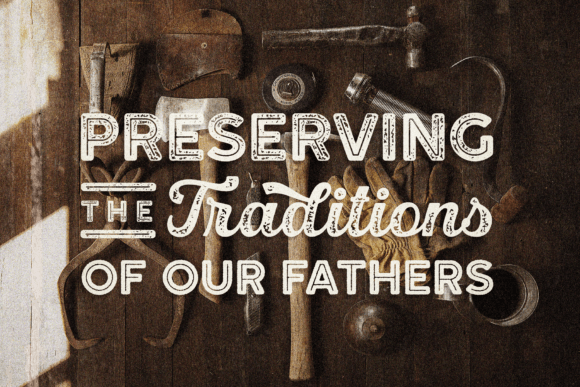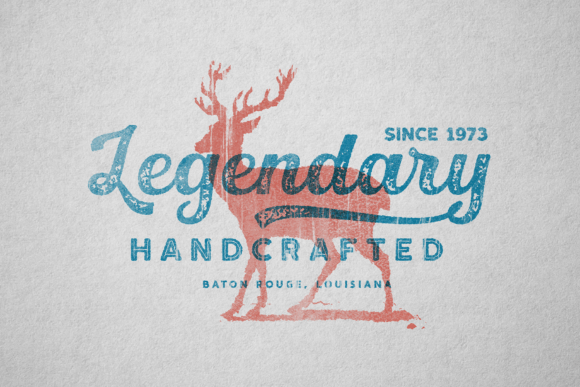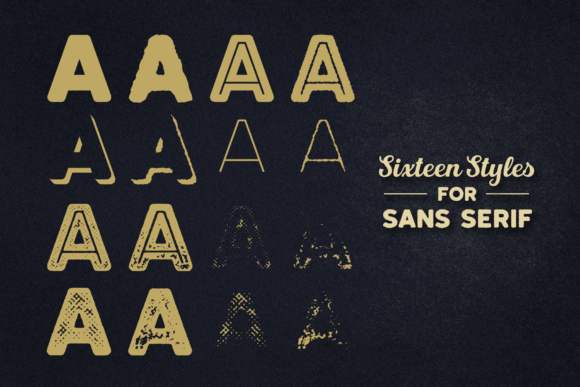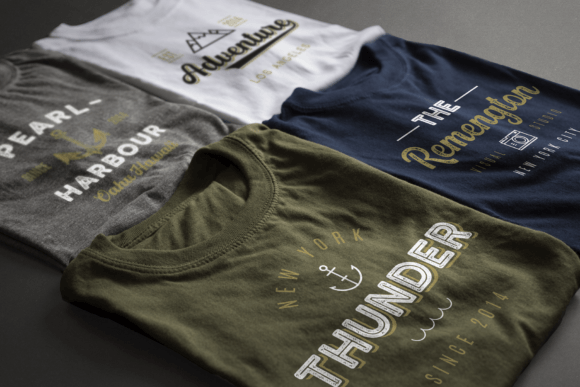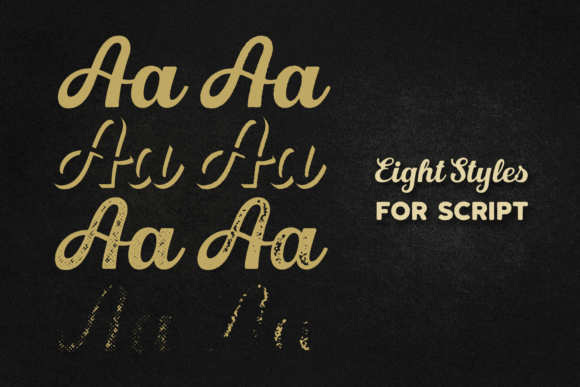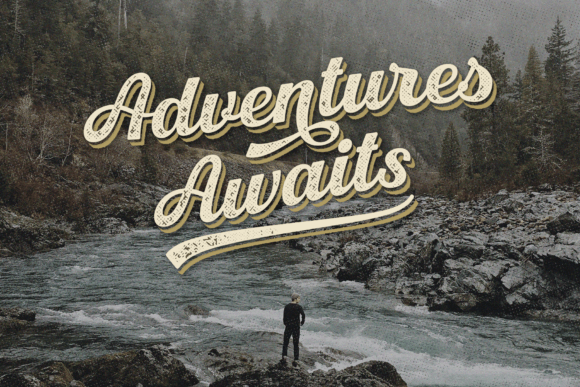
Getting the Look You Want: Introduction to Proper Tavern Font
As a designer, have you ever been working on a project and couldn’t quite find the perfect font to bring your vision to life? You know the feeling – scrolling through font libraries, searching for that elusive combination of style and sophistication. For me, that moment came when I was working on a creative project that required a vintage, high-quality feel. I wanted a font that would transport my audience to a bygone era, and that’s when I stumbled upon the Proper Tavern Font.
This stunning collection of 24 font styles is a game-changer for designers. With its transparent background and high-quality design, the Proper Tavern Font is the perfect design resource for any creative project. Whether you’re working on a design for a restaurant, a logo, or even a wedding invitation, this font is sure to impress.
Key Features of Proper Tavern Font
- High-quality, professional design suitable for various creative projects.
- Transparent background, making it easy to use with different backgrounds and designs.
- Unique characteristics include a classic, rustic feel with elegant flourishes, perfect for adding a touch of sophistication to any design.
- Includes a comprehensive character set, covering a wide range of languages and alphabets.
Honest Review: Proper Tavern Font
As a designer, I’m always on the lookout for high-quality fonts that can elevate my creative projects. The Proper Tavern Font caught my eye with its unique, vintage vibe and I was eager to dive in and see what it had to offer.
- ✨ High-quality design: The Proper Tavern Font is beautifully crafted with attention to detail, making it perfect for creative projects that require a touch of elegance.
- ✨ Transparent background: This feature allows for seamless integration with any design, ensuring a cohesive look and feel.
- ⚠️ Limited font styles: While the Proper Tavern Font has a great look, it’s limited to a few font styles, which might not be suitable for complex designs.
- ⚠️ Not ideal for modern designs: The vintage vibe of the font might not be the best fit for modern, cutting-edge designs.
Overall, the Proper Tavern Font is a great addition to any designer’s toolkit. While it may have its limitations, it’s a solid choice for creative projects that require a touch of sophistication and elegance.
Proper Tavern Font is ideal for a variety of creative projects, including:
- Invitations and event materials
- Menus and restaurant branding
- Logos and business materials
- Posters and advertising materials